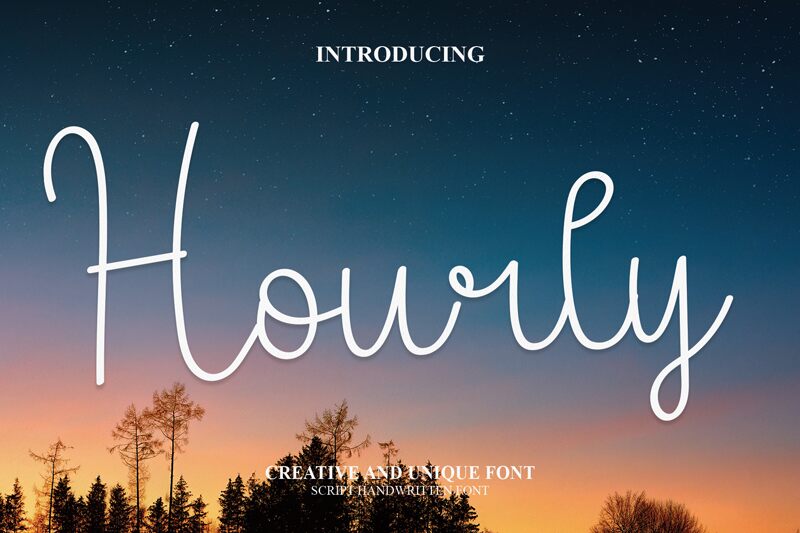
Hourly
Hourly, the delightful extra-light handwritten font designed by Belina Studio, is a perfect fit for a variety of projects. Whether you're creating invitations, greeting cards, or branding materials, Hourly's semi-condensed width makes it easy to read and adds an elegant touch to your designs. This lovely typeface also works well for social media graphics and website headers. With Hourly, you can add a personal touch to any project with its charming handwritten style. So why settle for boring fonts when you can give your work that extra something special with Hourly?
the latest style letters are perfect for wall displays, wedding invitations, social media post logos, advertisements, product packaging, product designs, labels, photography, watermarks, invitations, stationery, and any project that requires taste handwriting.